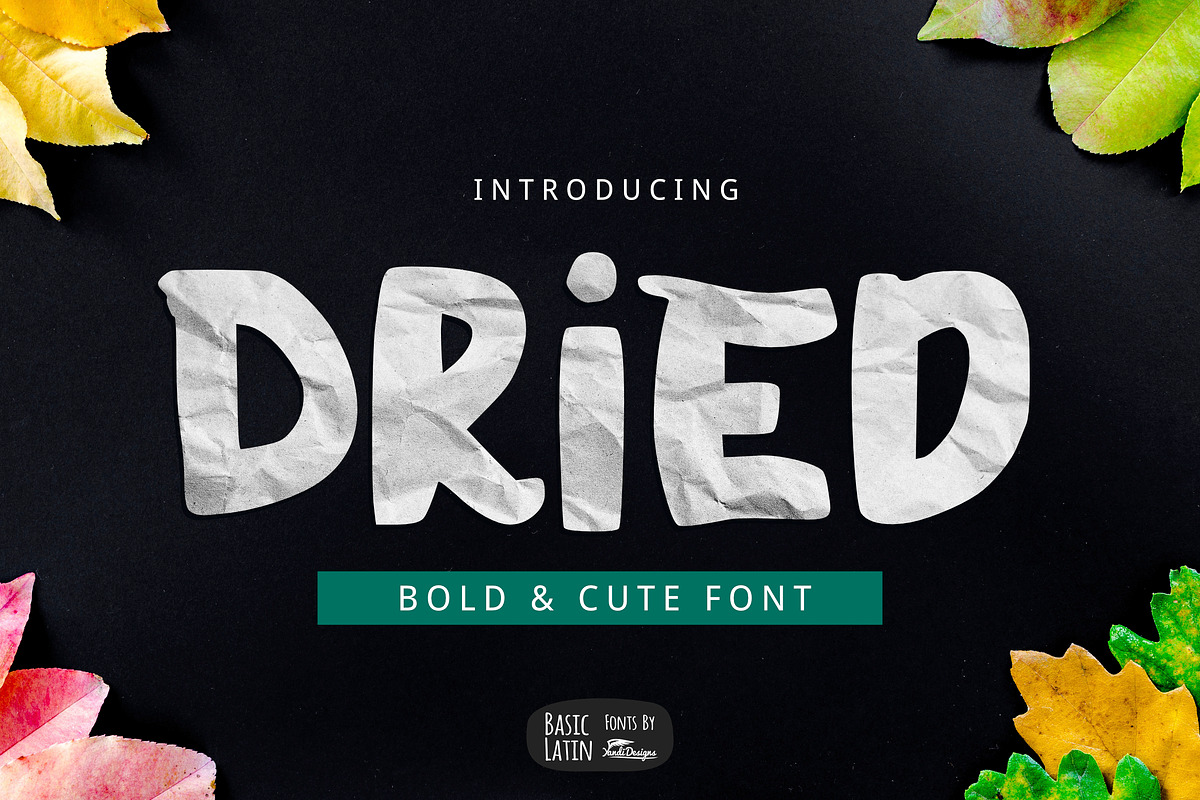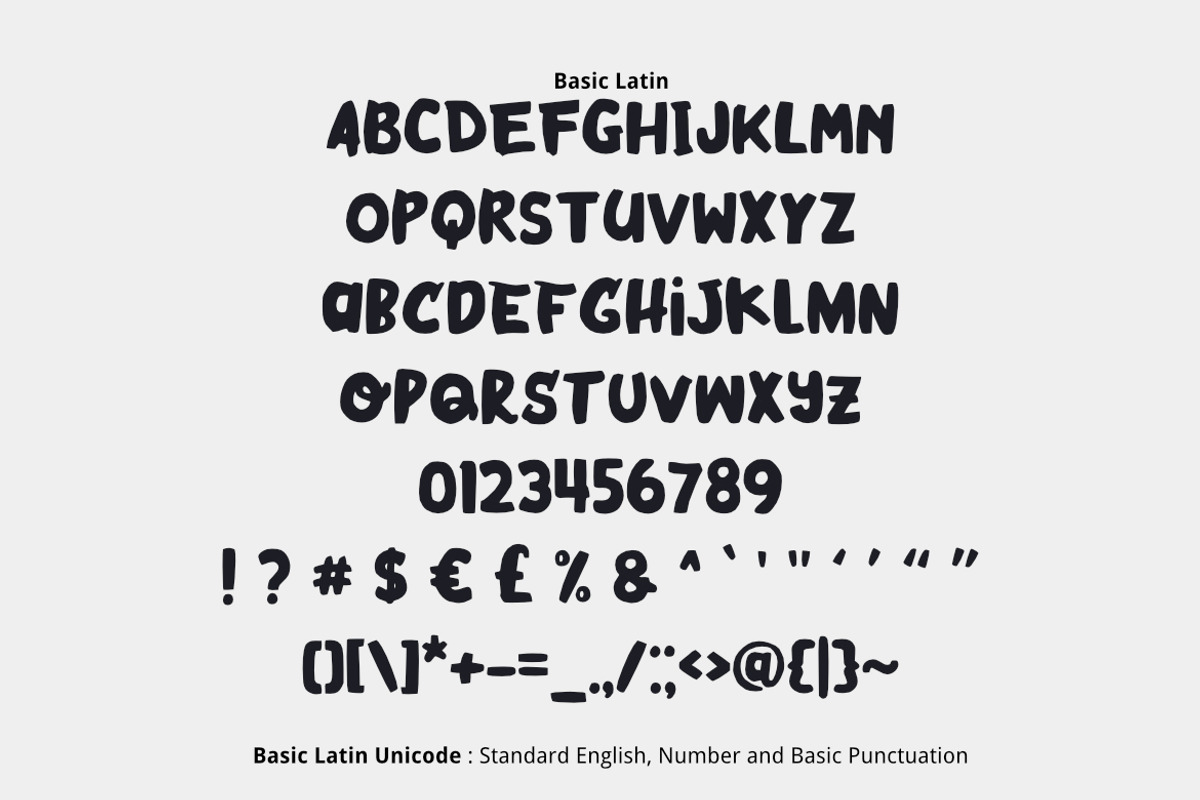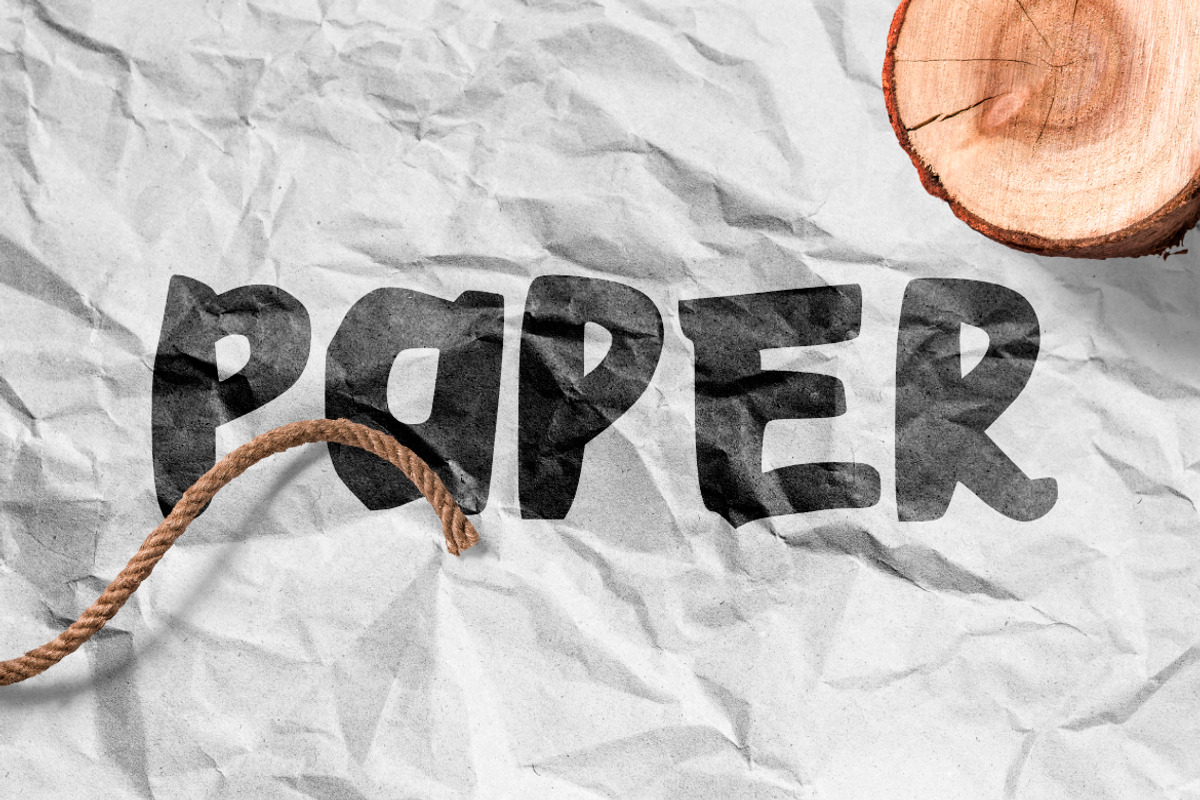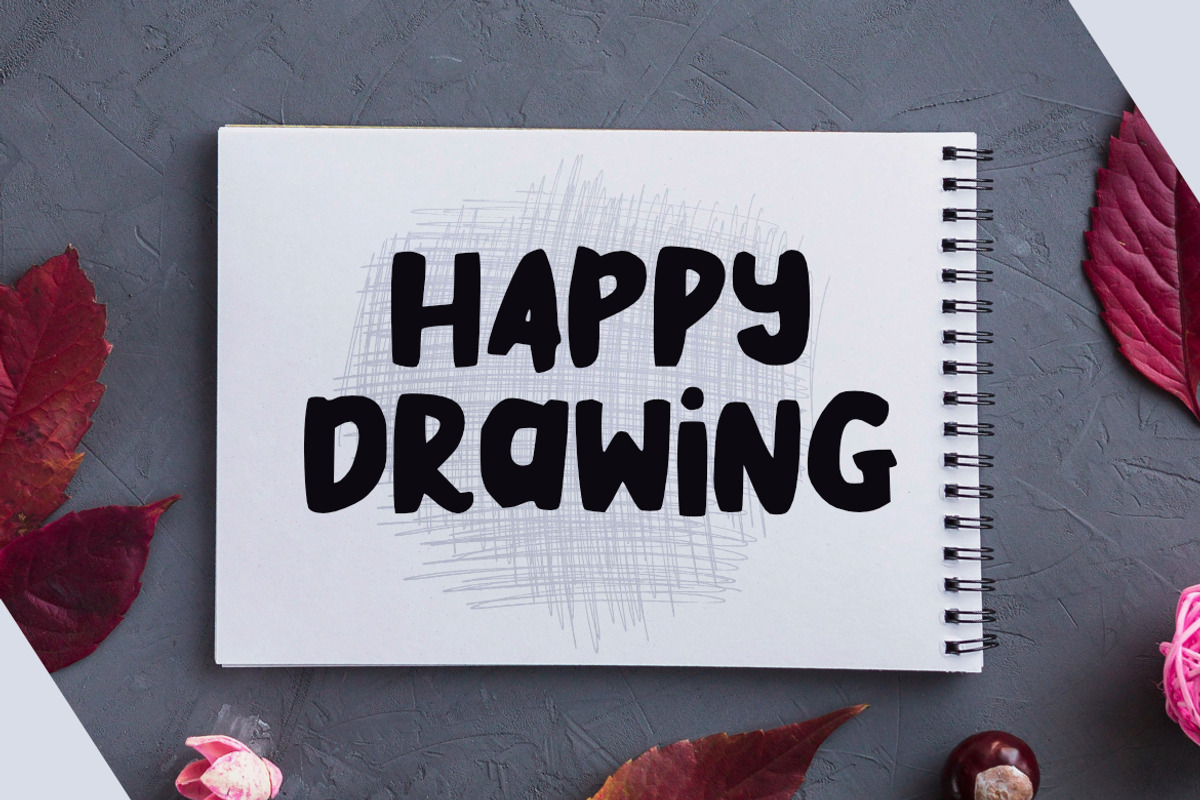
Dried Bold Font
Simple bold and cute multipurpose font, suitable for many project children book, quotes, logo , heading , title etc.
Why Dried Bold Font is worth a look
Dried Bold Font by YandiDesigns fits naturally into Branding, posters, packaging, typography.